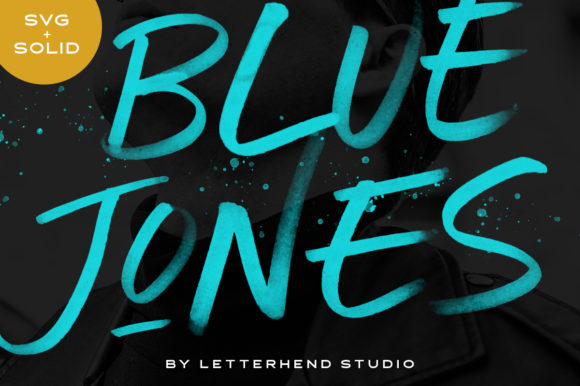
The Blue Jones Font: Elevate Your Designs with an Urban Twist
I’ll never forget the time I was working on a project for a trendy boutique hotel, trying to find the perfect font to capture their edgy-chic vibe. I scoured the internet, tried out dozens of fonts, but nothing seemed quite right. That was until I stumbled upon the Blue Jones font. Its unique urban style instantly resonated with the hotel’s brand aesthetic, and I knew I’d found the one. If you’re a designer, crafter, or creative hobbyist looking to add a touch of urban flair to your work, you’re in luck! In this article, we’ll dive into the world of Blue Jones, exploring its features, how to use it, and some fantastic alternatives.
An Honest Review of Blue Jones
So, what makes Blue Jones so special? Let’s take a closer look.
• ✨ Unique urban style that’s perfect for display text and headings
• ✅ Highly legible, even at smaller sizes
• 💥 Excellent for creating eye-catching titles, posters, and social media graphics
• 🎨 Versatile and can be used for a wide range of creative projects
While Blue Jones is an amazing font, it’s not without its quirks. Here are a few things to keep in mind:
• 🤔 May not be the best choice for body text or long paragraphs, as it’s designed primarily for display use
• ⚠️ Some characters may not work well at very small sizes (less than 10pt)
The Story Behind Blue Jones
Blue Jones was designed by a young typographer who grew up in the urban jungle. Inspired by the city’s vibrant street art scene, he created Blue Jones as a way to capture the energy and edginess of urban culture. With its unique blend of bold lines and stylized curves, Blue Jones has become a favorite among designers and creatives looking to add a touch of urban flair to their work.
What is the Blue Jones font best used for? Blue Jones is perfect for display text, headings, titles, and social media graphics where you want to make a bold statement.